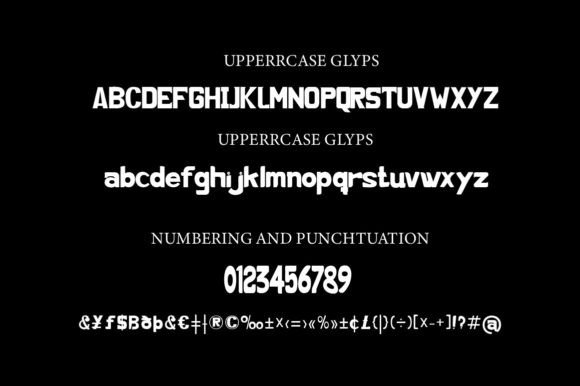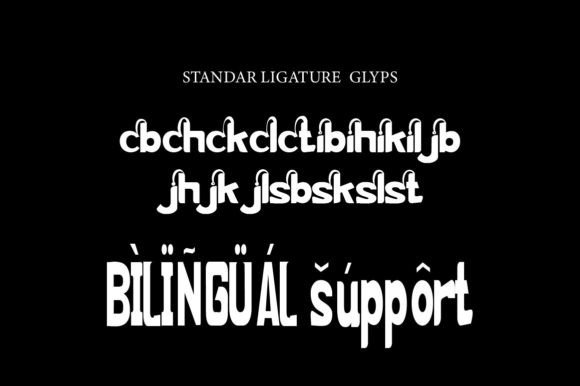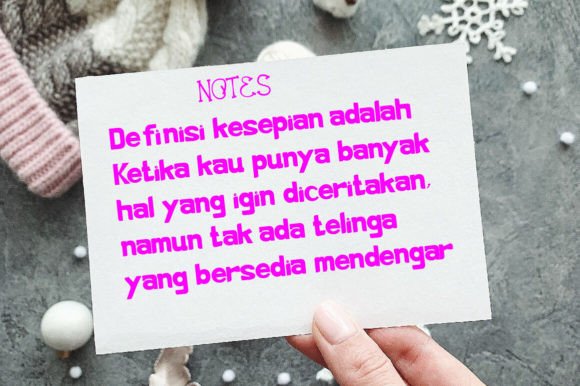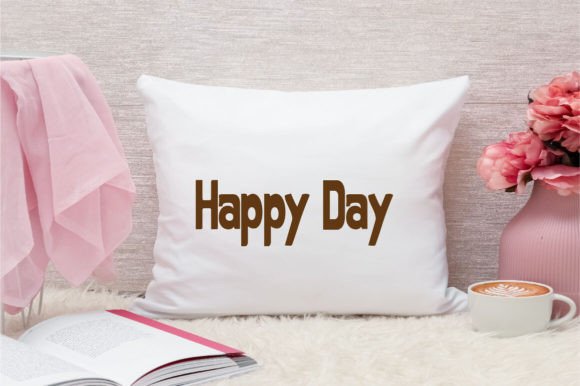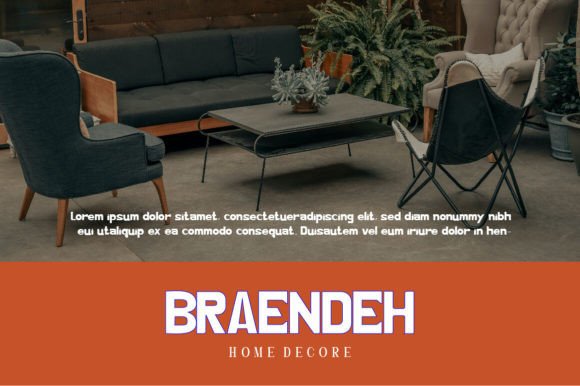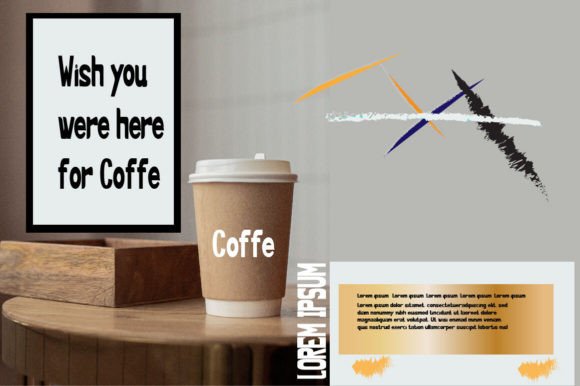
Unlocking the Power of Modern Design
Have you ever found yourself stuck in front of a blank canvas, trying to decide on the perfect font to elevate your design? The struggle is real, but what if I told you there’s a solution that can instantly give your projects a touch of sophistication and class? Enter the Braendeh Font, a stunning Sans Serif font that’s perfect for making a statement.
This versatile font is designed to make a lasting impression, whether it’s in a magazine headline, a book cover, or even a social media post. With its unique style and smooth curves, Braendeh Font adds an extra layer of professionalism to any design. And the best part? It’s incredibly easy to use, making it a valuable addition to any designer’s toolkit.
Braendeh Font Key Features
- Unique Characteristics: Braendeh Font features a unique blend of modern and vintage elements, with intricate details and subtle textures that give it a distinctive, artisanal feel.
Braendeh Font Review
I recently had the chance to work with the Braendeh font, and I have to say, it’s a unique and interesting addition to any design project. ✨
One thing that works well with Braendeh is its flexibility. It can be used for both body text and headings, making it a great option for designers who want a single font that can handle a variety of tasks. The font also has a clean and modern aesthetic, which is perfect for contemporary designs. ✨
Another aspect of Braendeh that I appreciate is its wide range of weights and styles. From light to bold, the font offers a lot of options for designers who want to add some depth and visual interest to their designs. ✨
However, there are some limitations to keep in mind. The font’s readability can be a bit of an issue, especially in smaller sizes. ⚠️ It’s also worth noting that Braendeh may not be the best choice for designs that require a lot of complex typography or intricate details. ⚠️
Overall, I think Braendeh is a solid choice for designers who want a modern and flexible font that can handle a variety of tasks. Just be sure to keep an eye on the font size and avoid using it for designs that require too much complexity.
- Flexibility: Braendeh can be used for both body text and headings.
- Clean and modern aesthetic.
- Wide range of weights and styles.
- May not be the best choice for designs that require complex typography or intricate details.
- Readability can be an issue in smaller sizes.
The Braendeh font is ideal for:
- Creating a modern and sleek design
- Adding a touch of elegance to headings and titles
- Designing brochures, business cards, and other marketing materials